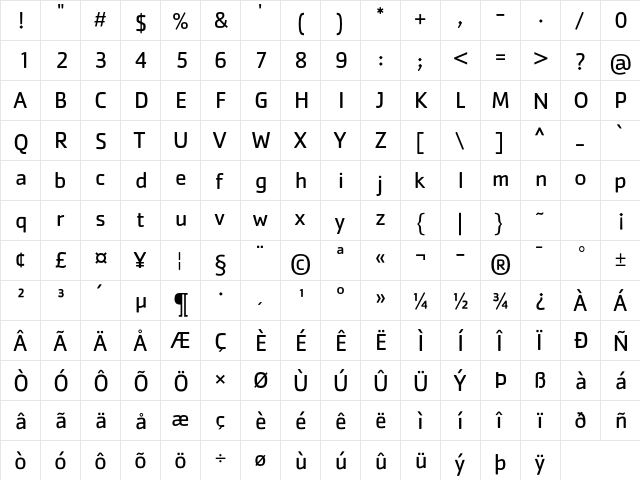
Cachet Std Book
Design Context for Cachet Std Typeface
Cachet Std offers clean, dependable letterforms without strong stylistic allegiance, making it a practical choice for designers who need flexibility.
Pro Tip: Use Cachet Std in both headline and body roles to test its range before committing to a single application.